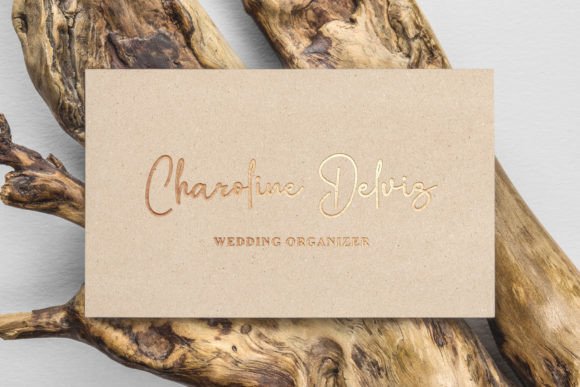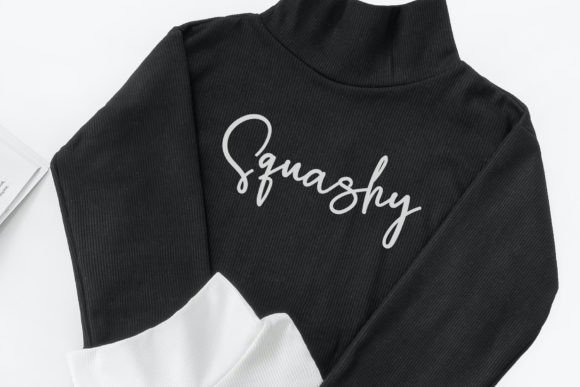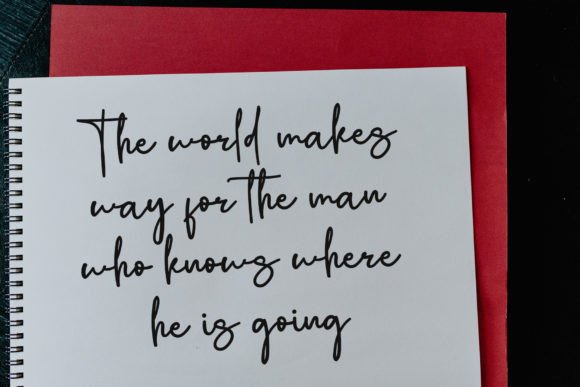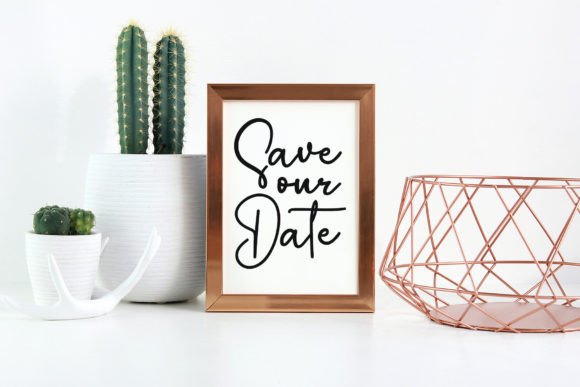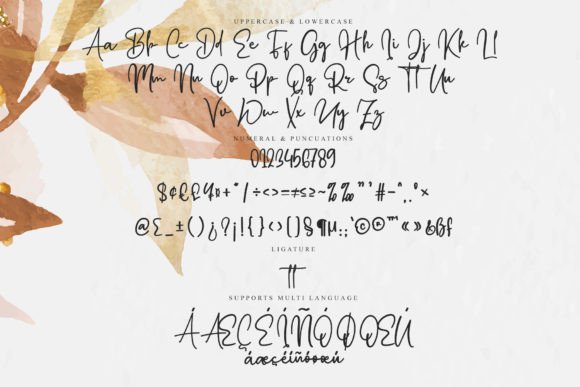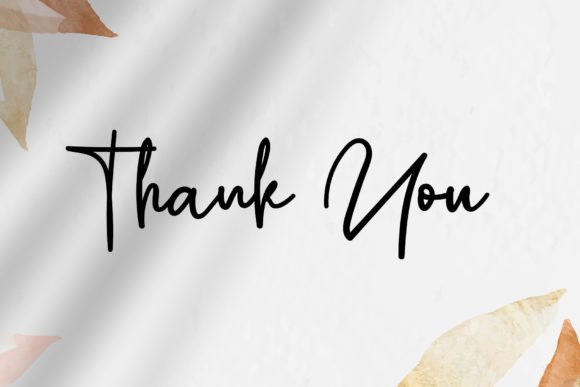
Bella Script Font: Elevate Your Designs with Elegance and Sophistication
Are you on the hunt for a font that exudes elegance, sophistication, and a touch of whimsy? Look no further than the Bella Script Font. This delicate, flowing handwritten font is perfect for designers and crafters looking to add a touch of luxury to their projects. With its incredibly distinct and timeless style, Bella Script is sure to capture the hearts of those who lay eyes on it.
The Beauty of Bella Script
Bella Script is a true masterpiece, boasting a unique blend of classic and modern elements. Its flowing lines, intricate swashes, and delicate letterforms come together to create a font that is both visually stunning and highly versatile. Whether you’re working on a wedding invitation, a branding project, or a digital design, Bella Script is the perfect choice for those who want to make a statement.
One of the standout features of Bella Script is its PUA (Private Use Area) encoding. This means that you can access all of the font’s glyphs and swashes with ease, giving you unparalleled creative control over your designs. With PUA encoding, you can effortlessly swap out letters, add flourishes, and experiment with different combinations to create truly unique and breathtaking designs.
Bella Script is an incredibly versatile font, suitable for a wide range of projects and applications. Here are just a few ideas to get you started:
- Wedding invitations and stationery: Add a touch of romance and elegance to your wedding designs with Bella Script.
- Branding and packaging: Use Bella Script to create luxurious and eye-catching branding materials that will elevate your clients’ businesses.
- Digital designs: From social media graphics to website headers, Bella Script is the perfect choice for adding a touch of sophistication to your digital designs.
- Crafting and DIY projects: Bella Script is a great choice for crafters and DIY enthusiasts looking to add a personal touch to their projects, from scrapbooking to card making.
Why Choose Bella Script?
With so many fonts on the market, why choose Bella Script? Here are just a few reasons why this font stands out from the crowd:
- Unique and timeless style: Bella Script boasts a truly unique and timeless style that will set your designs apart from the rest.
- Elegant and sophisticated: This font exudes elegance and sophistication, making it perfect for high-end designs and luxury brands.
- Highly versatile: Bella Script can be used for a wide range of projects and applications, from digital designs to print materials.
- Easy to use: With PUA encoding, accessing glyphs and swashes has never been easier.
Get Ready to Fall in Love with Bella Script
In conclusion, Bella Script Font is a delicate, elegant, and flowing handwritten font that is perfect for designers and crafters looking to add a touch of luxury to their projects. With its PUA encoding, unique style, and high versatility, Bella Script is an excellent choice for a wide range of applications. So fall in love with Bella Script and take your designs to the next level!